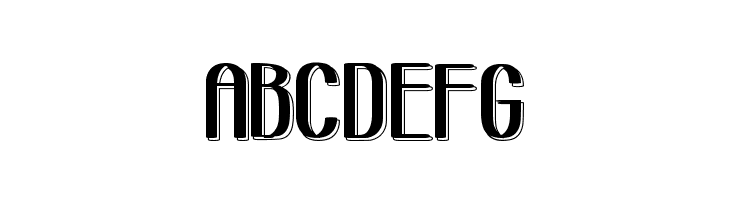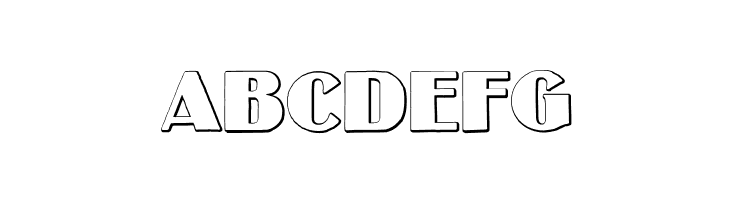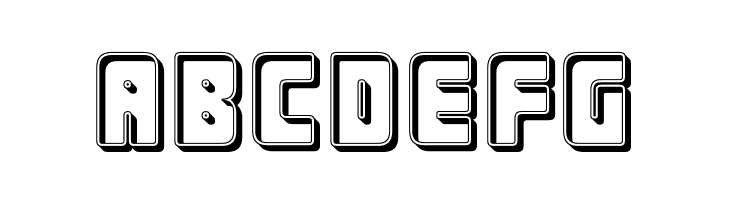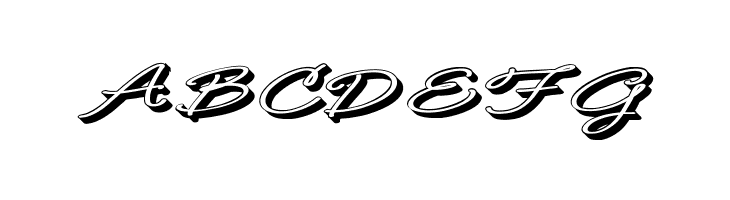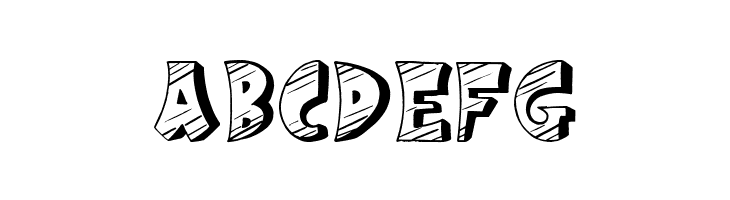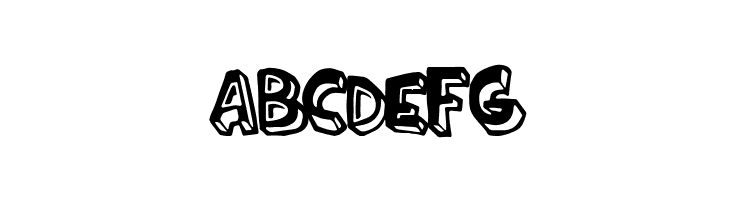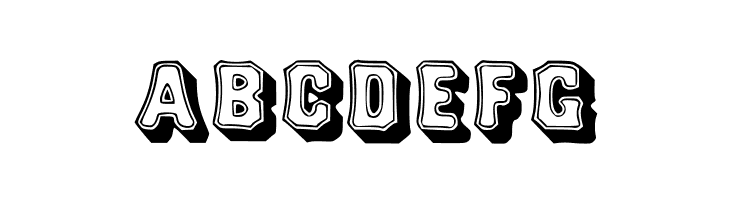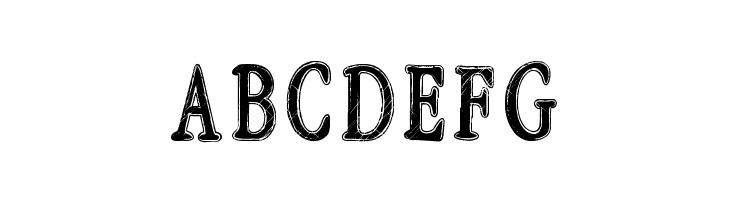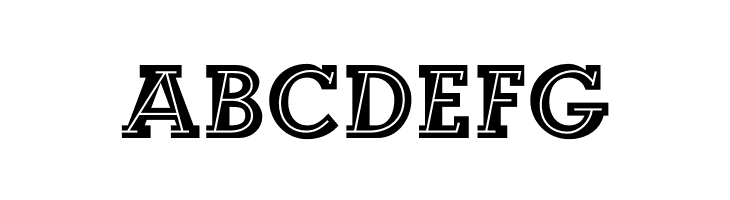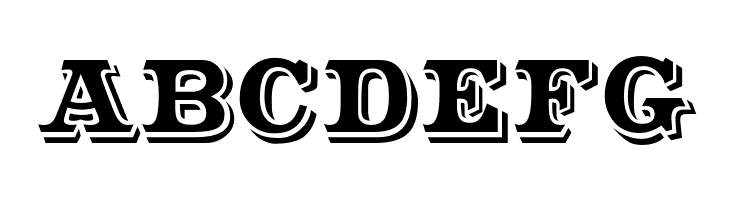
A bold, decorative font with a vintage, three-dimensional style.
A bold, decorative font with a vintage Western style and three-dimensional effect.
A bold, staggered italic font with a three-dimensional effect.
A bold, decorative font with a vintage, three-dimensional style.
A playful, pixelated outline font with a retro, three-dimensional look.
A bold, retro-inspired font with a three-dimensional line effect.
A bold, industrial font with a three-dimensional, geometric design.
A bold, cursive font with a shadow effect for a three-dimensional look.
A playful, bold font with a hand-drawn, three-dimensional style.
A bold, three-dimensional, graffiti-style font with a playful and dynamic appearance.
A bold, three-dimensional block font with a strong shadow effect and geometric design.
A bold, decorative font with a vintage, three-dimensional style.
A bold, outlined font with a vintage, three-dimensional style.
A bold, decorative font with a vintage, three-dimensional style.
A bold, playful font with a hand-drawn, three-dimensional look.
A bold, collegiate-style font with a strong, three-dimensional effect.
A bold, decorative font with sharp edges and a vintage, three-dimensional shadow effect.
A bold, shadowed font with a three-dimensional, decorative style.
A bold, geometric font with a three-dimensional effect and sharp angles.
A playful, hand-drawn font with a bold, three-dimensional effect.
A bold, decorative font with ornate details and a three-dimensional effect.
A geometric, angular font with a three-dimensional, modern design.
Bold, geometric font with a three-dimensional shadow effect.
A bold, three-dimensional font with a playful, extruded design.
A bold, embossed decorative font with a vintage, three-dimensional style.